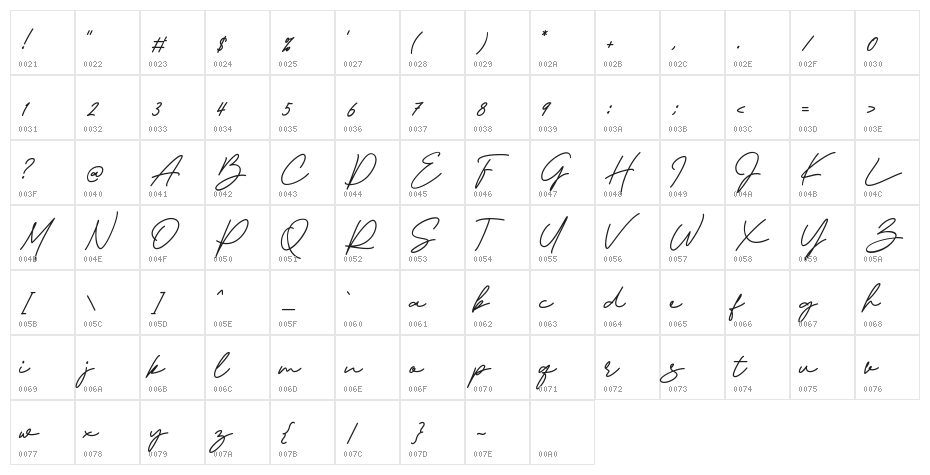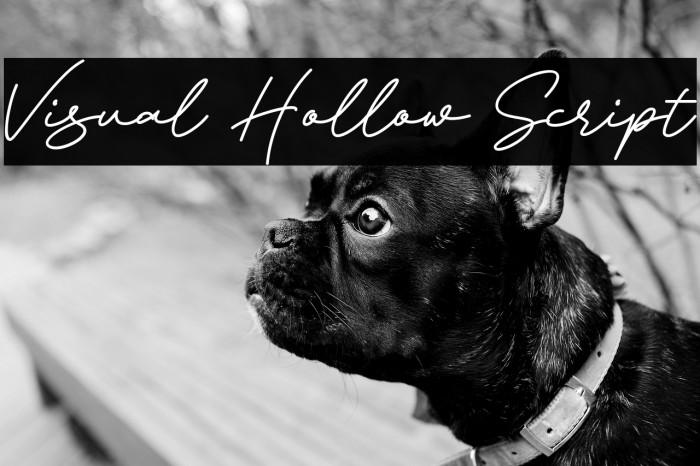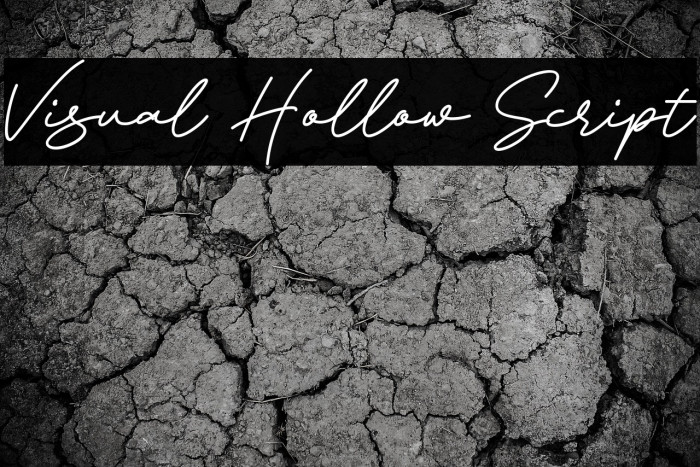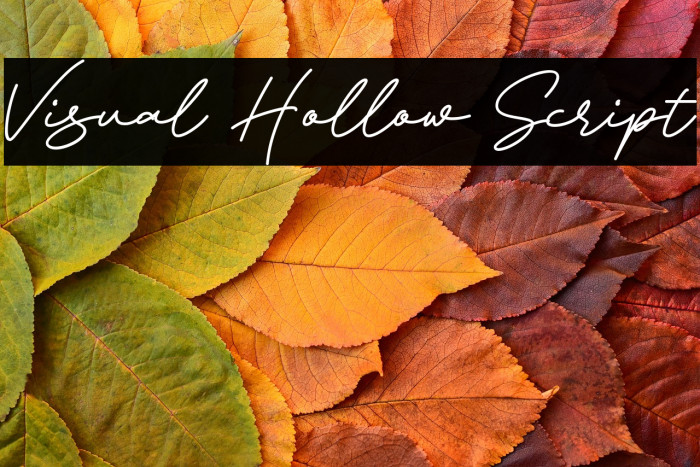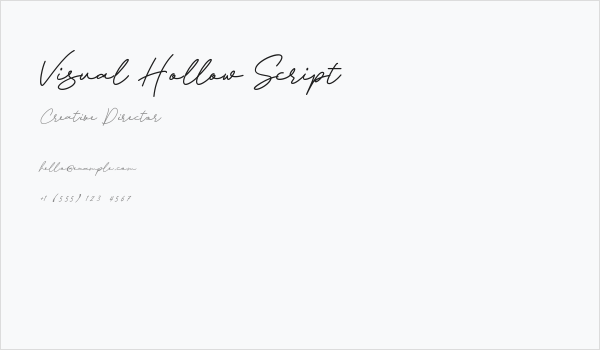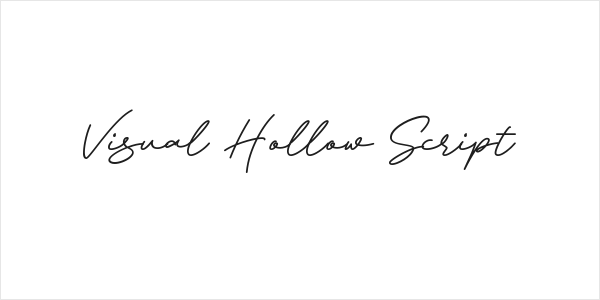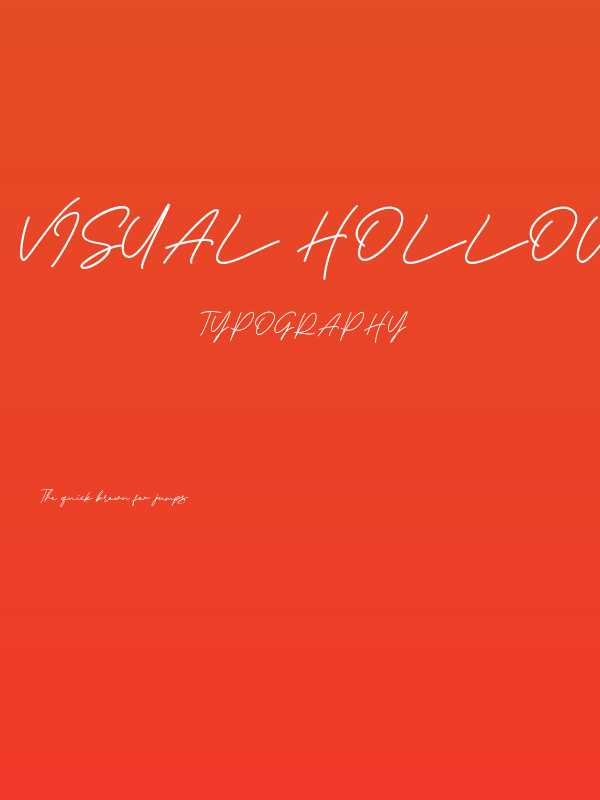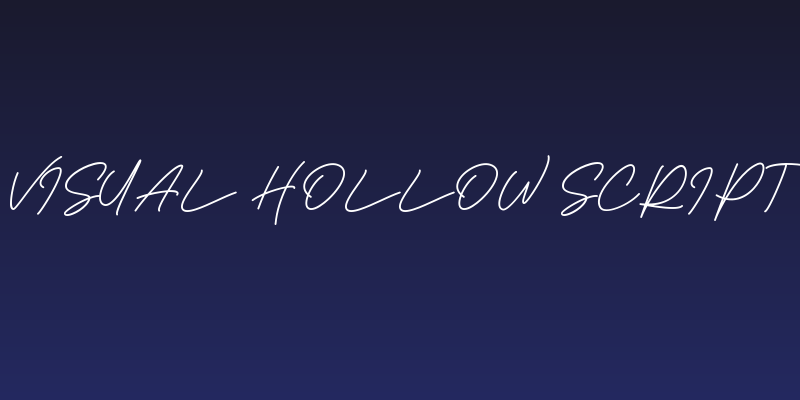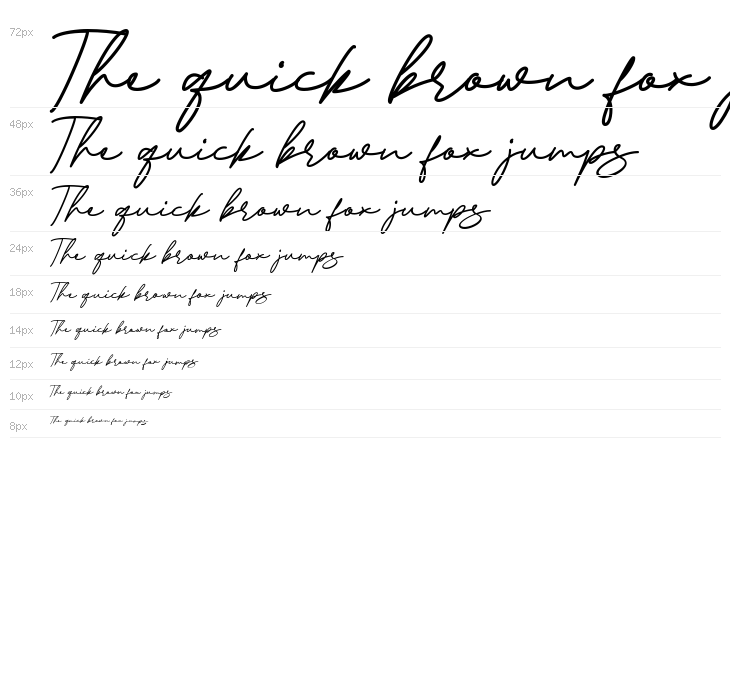
Visual Hollow Script Font
Visual Hollow Script Description
This font exhibits a flowing, cursive style with elegant, sweeping lines that create a sense of fluidity and grace. The uppercase letters are tall and slender, featuring gentle curves and loops that enhance their sophisticated appearance. The lowercase letters maintain a consistent rhythm, with smooth connections between each character, giving the text a seamless, handwritten look. The numerals and special characters are designed to match the overall aesthetic, with a similar emphasis on fluidity and elegance. This font is ideal for projects that require a personal touch, such as invitations, greeting cards, or branding materials.
| Overall Style | Elegant, Handwritten |
| Use Case | Headlines, Invitations, Greeting Cards |
| Proposed Projects | Ideal for invitations, greeting cards, branding materials, and any project requiring a personal touch. |